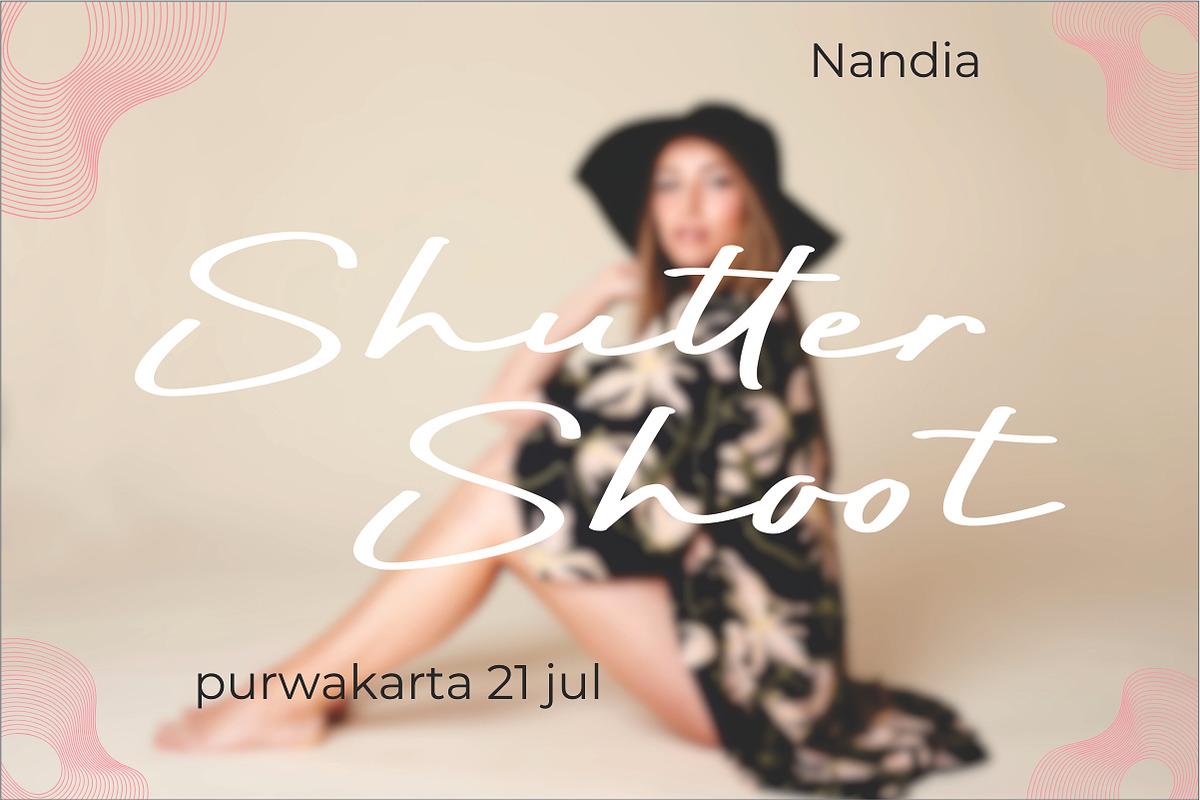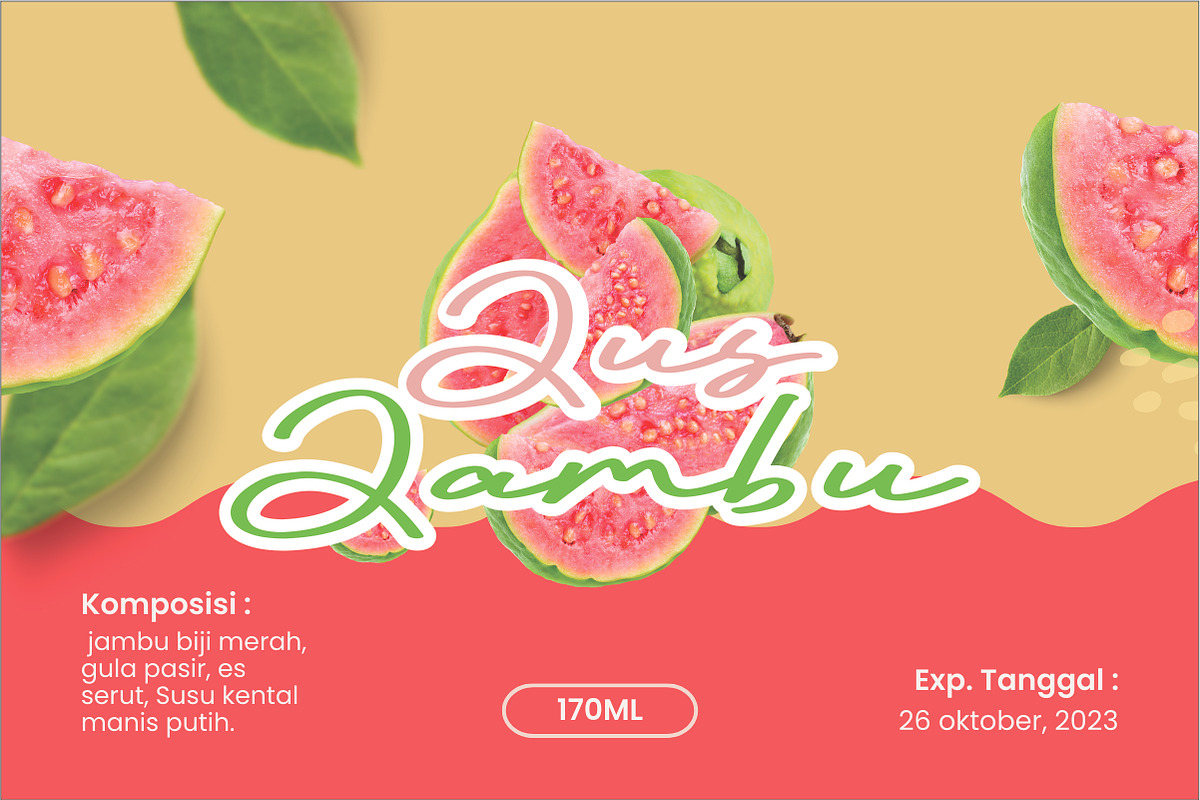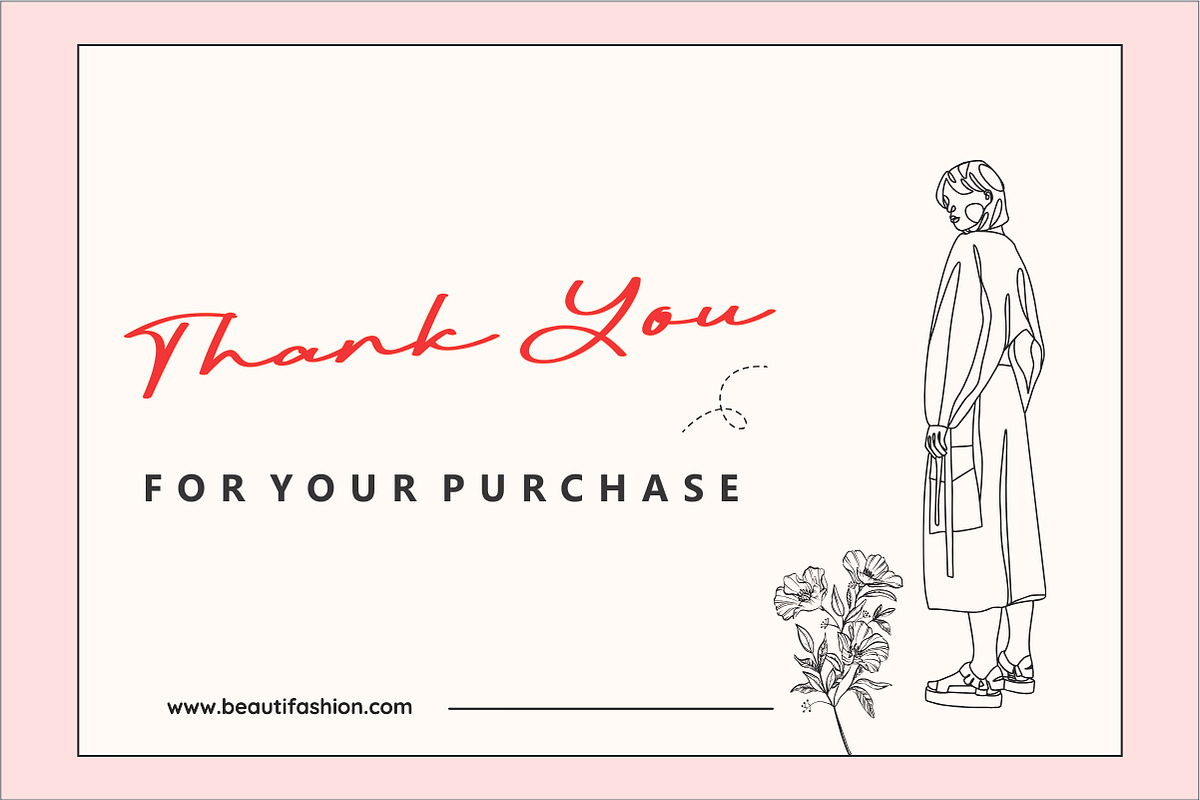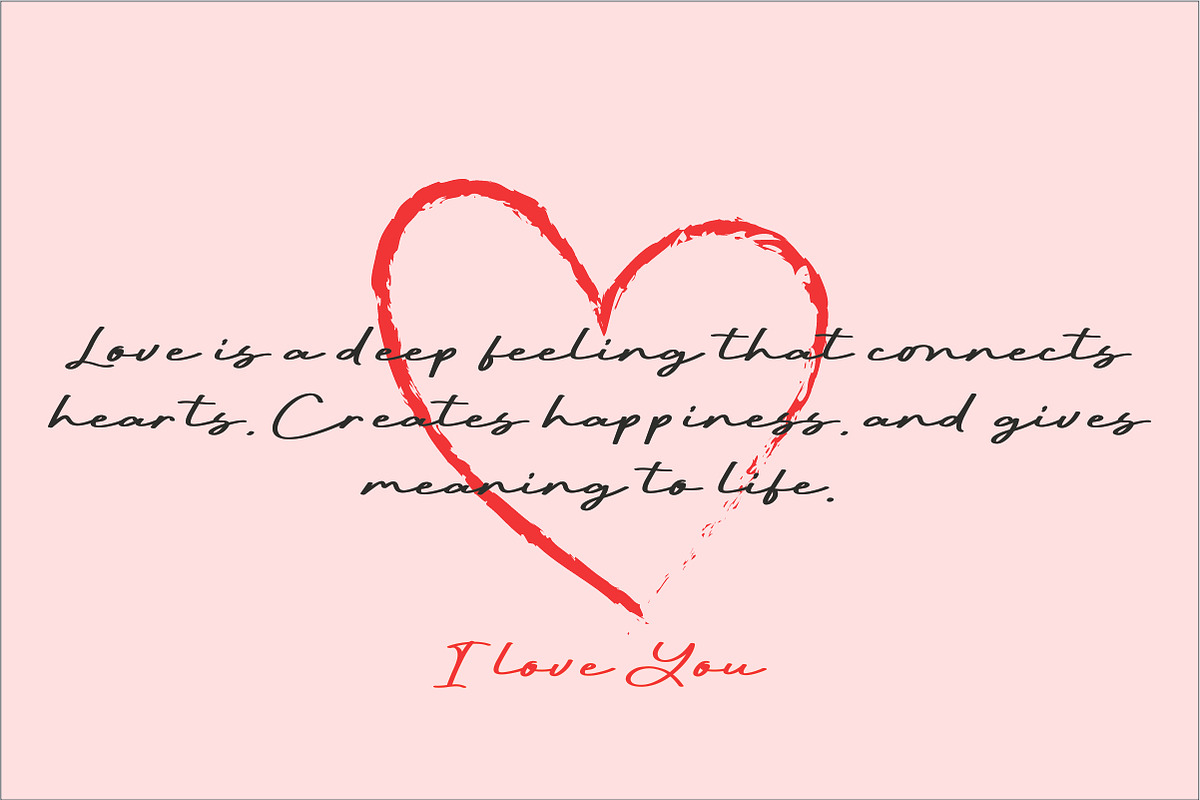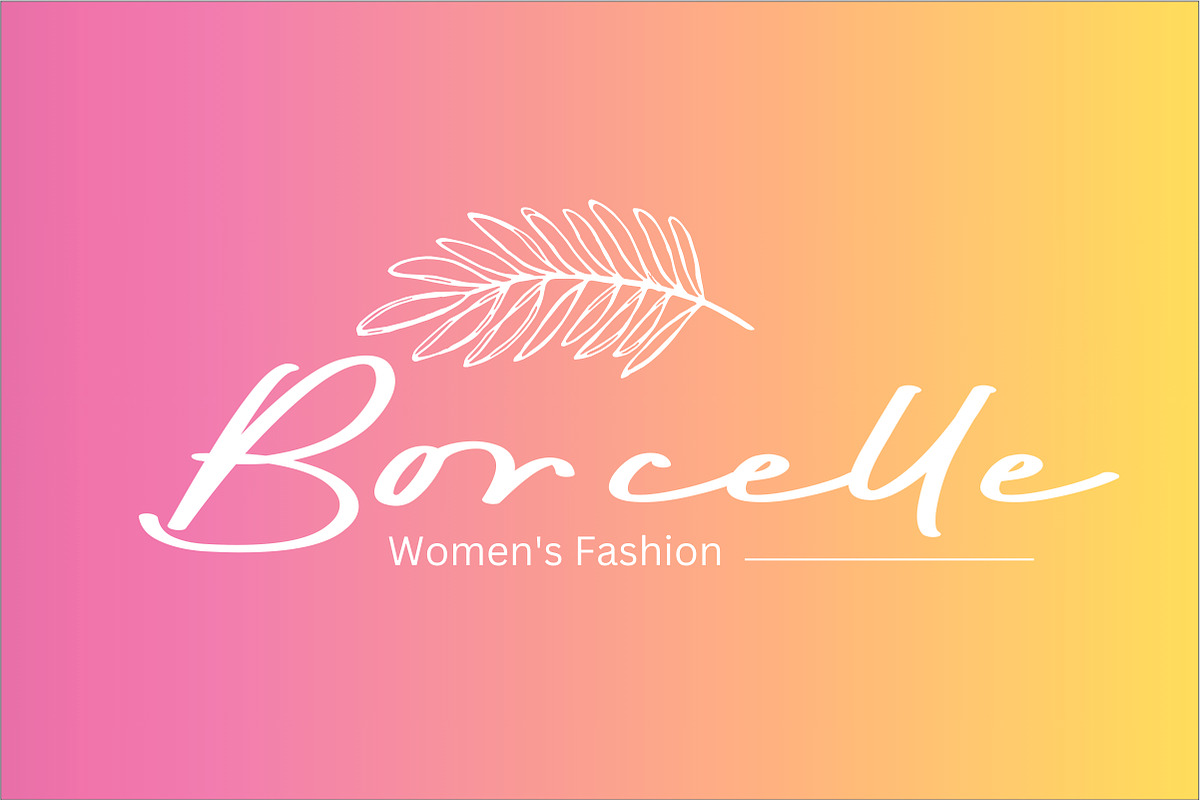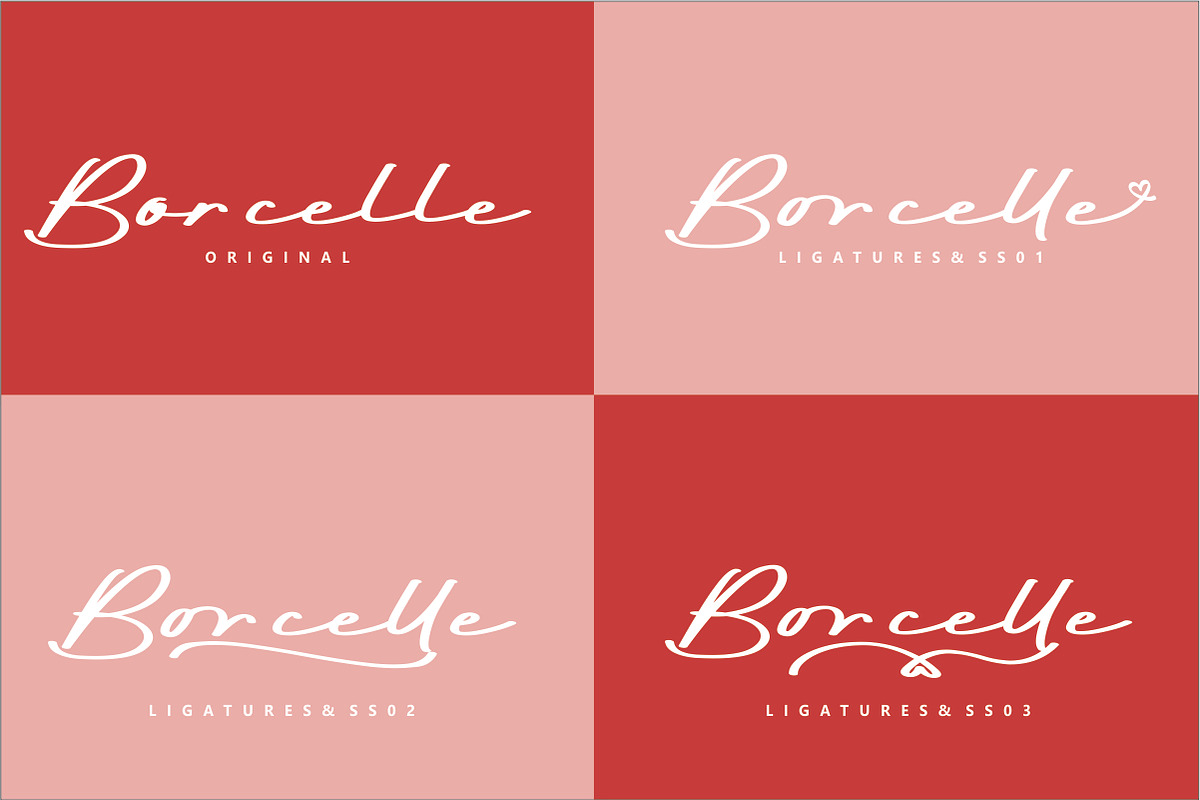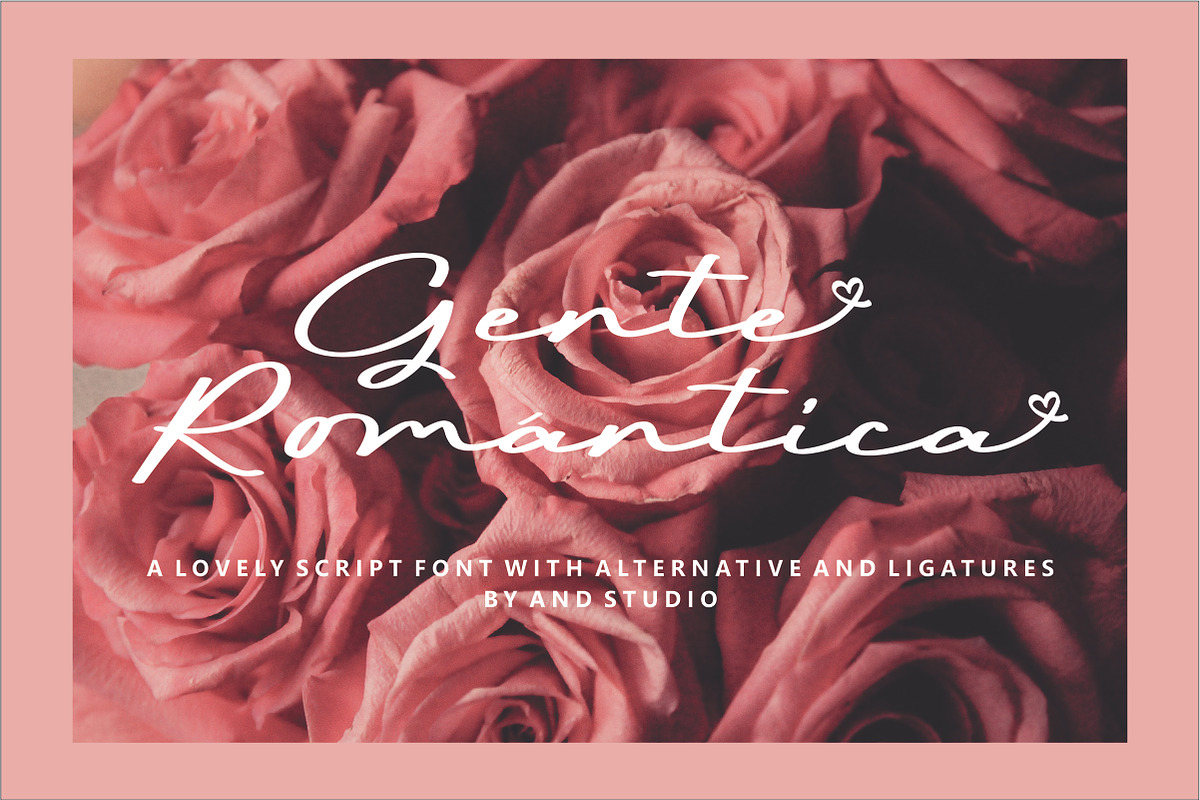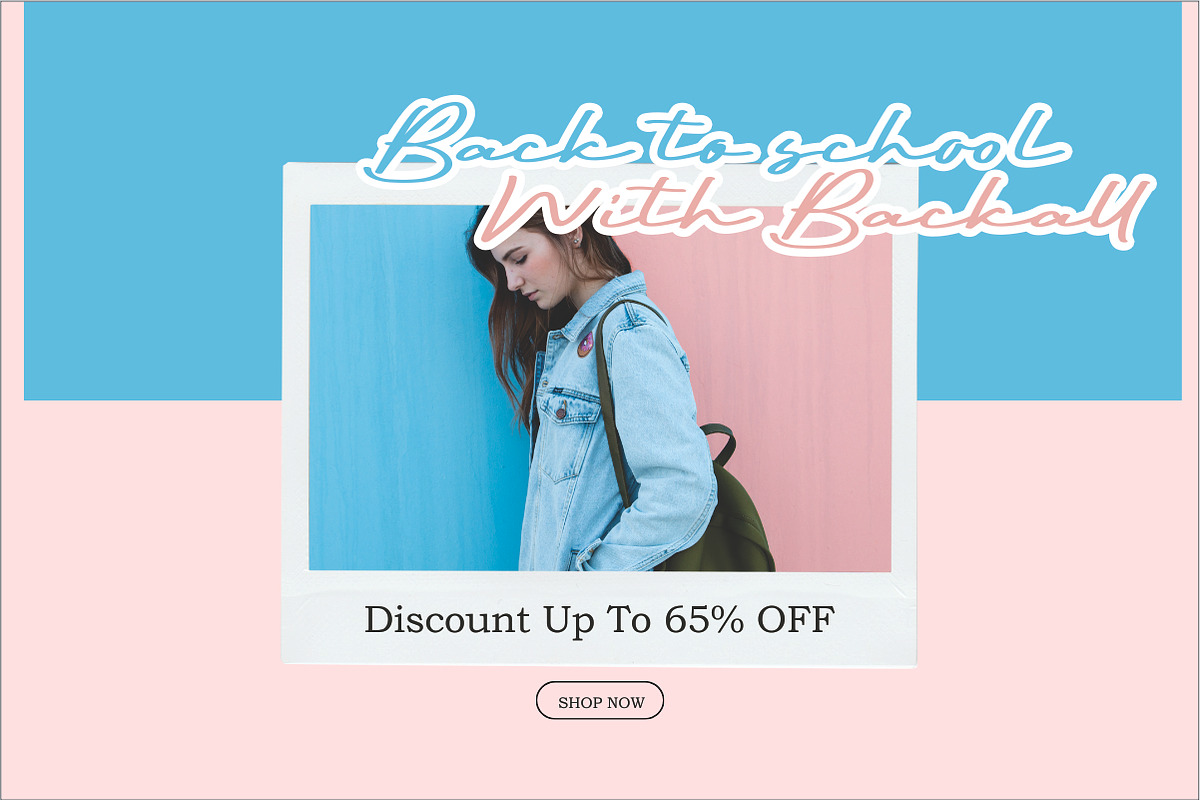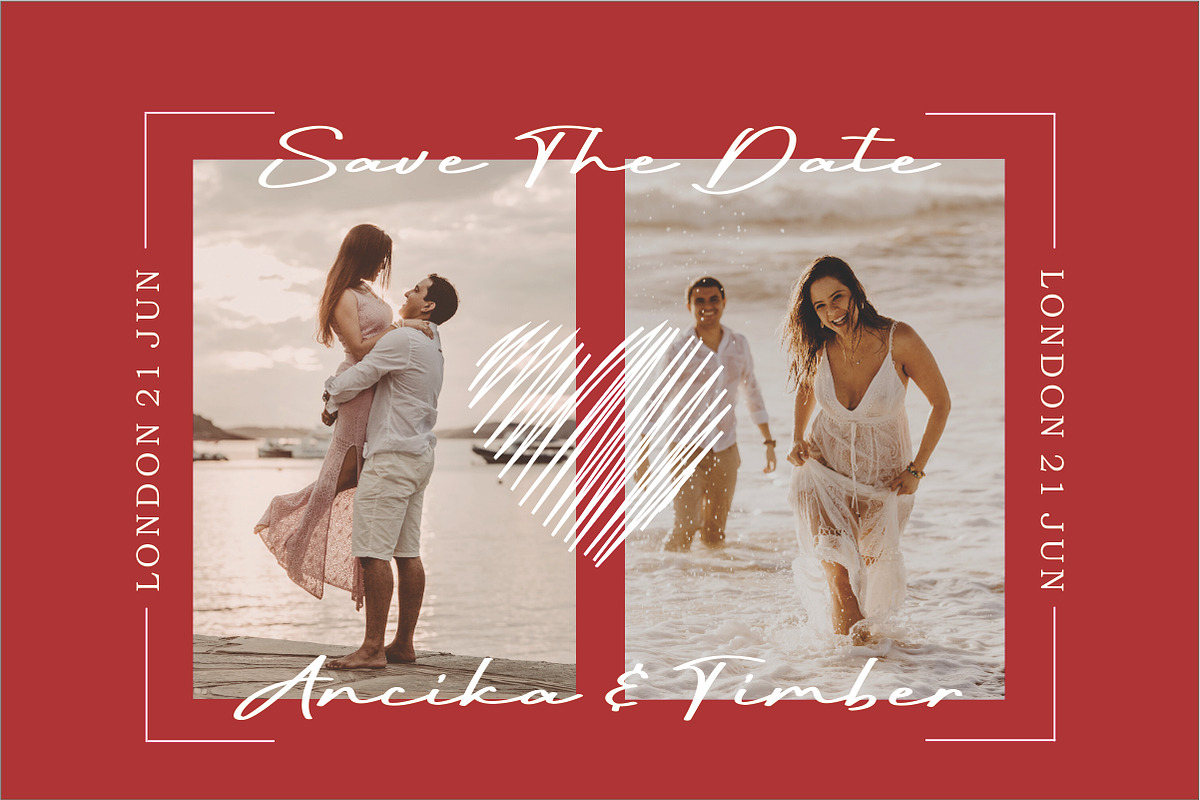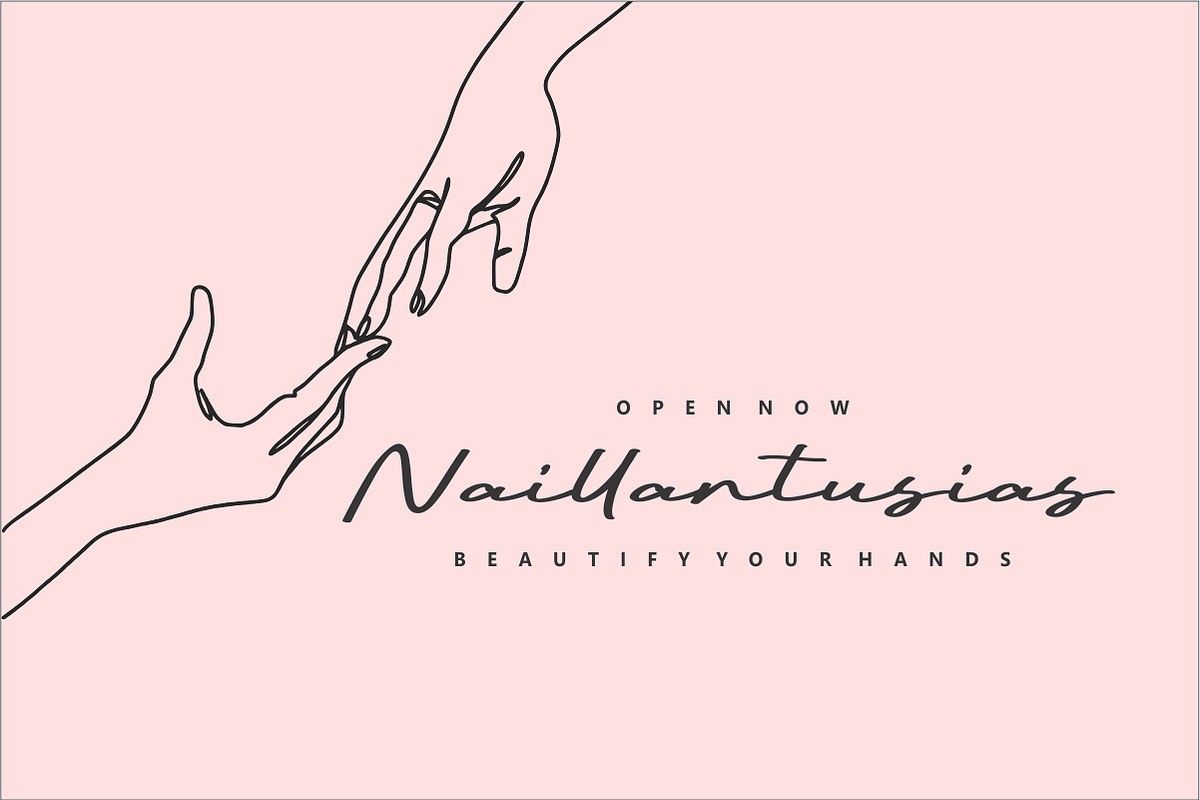
Gente Romantica
"Gente Romantica is a beautiful handwritten font, exuding a romantic and gentle ambiance. With a flowing design and warm Valentine's touch, each letter radiates intimacy and elegance. Ideal for projects that prioritize a personal touch, such as greeting cards, invitations, or works celebrating special moments. This script font portrays uniqueness and warmth in every stroke, creating an eternal love atmosphere.
Special brushstrokes for lowercase characters offer additional flexibility in your design creativity. By leveraging these strokes, you can add decorative elements and a personal touch to the text, creating a more engaging and exclusive design. Romento is not just a font; it's digital handwriting art that brings the essence of a personal signature with a contemporary touch highly appreciated in the modern design world."